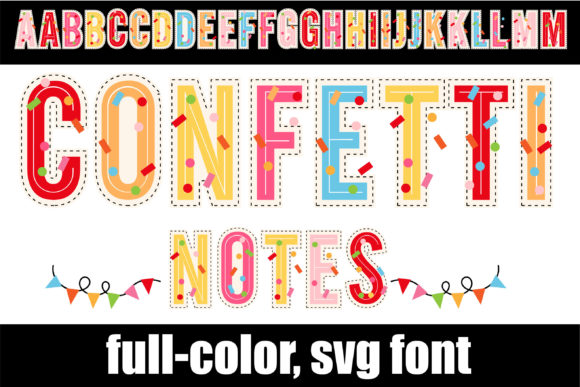
Introducing Confetti Notes Font, the perfect choice for all your festive design needs! Created by Illustration Ink, this font will add a vibrant and colorful touch to your party flyers and invitations.
With its full-color letters and confetti-inspired design, Confetti Notes is sure to grab everyone's attention. The bright and lively characters make it an ideal choice for any celebration or event.
But what sets Confetti Notes apart is its PUA encoding. This means that you can easily access a wide range of amazing glyphs and ligatures, allowing you to truly personalize your designs. Let your creativity run wild with this versatile font!